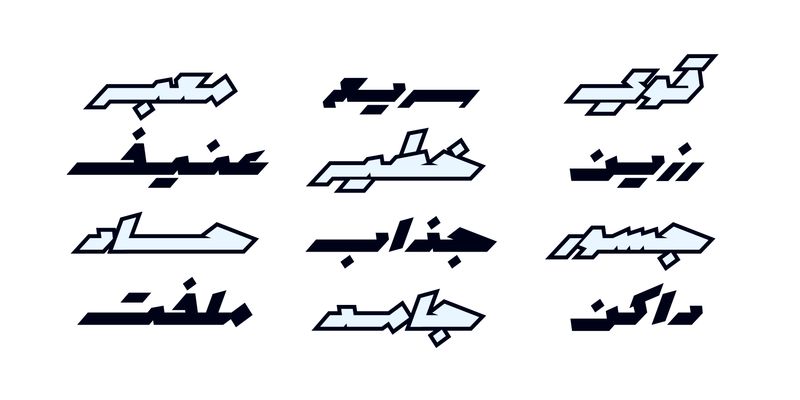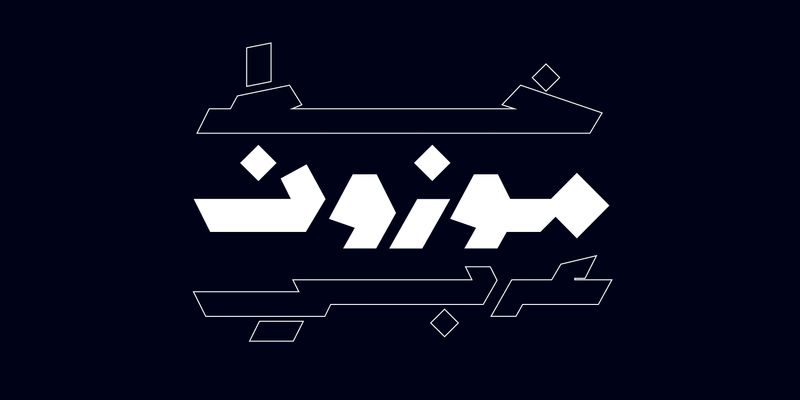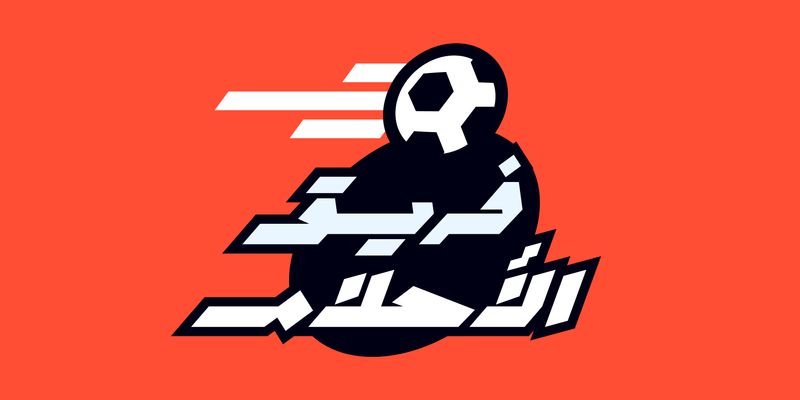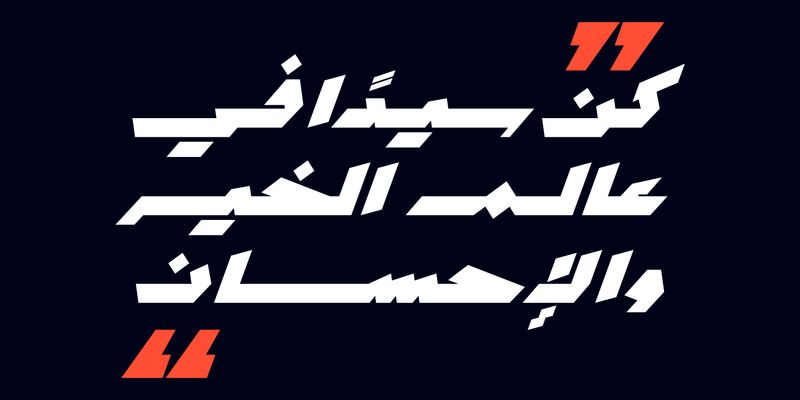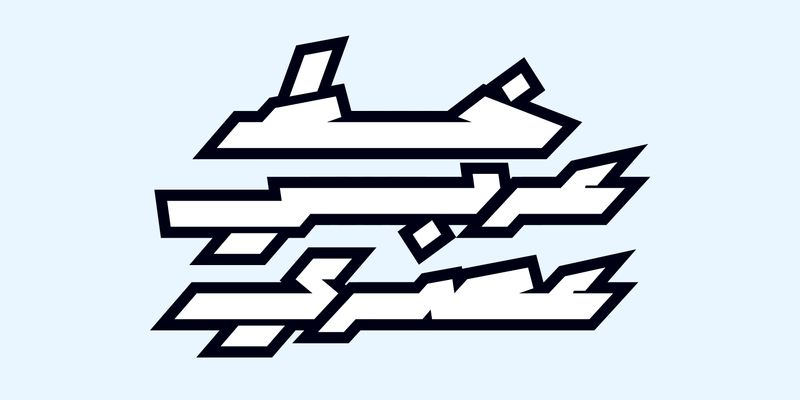
Mawzoon (the Arabic word for “Balanced”) is an Arabic display font heavily inspired by the Ruq’ah script. Its letterforms feature a solid geometric structure with edgy terminals and come in two styles: Normal and Oblique. Mawzoon is suitable for a wide range of creative projects, including print, web, advertising, and mobile applications.